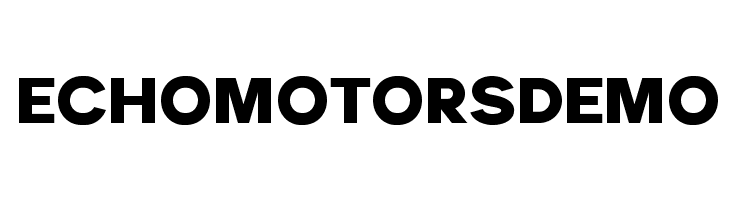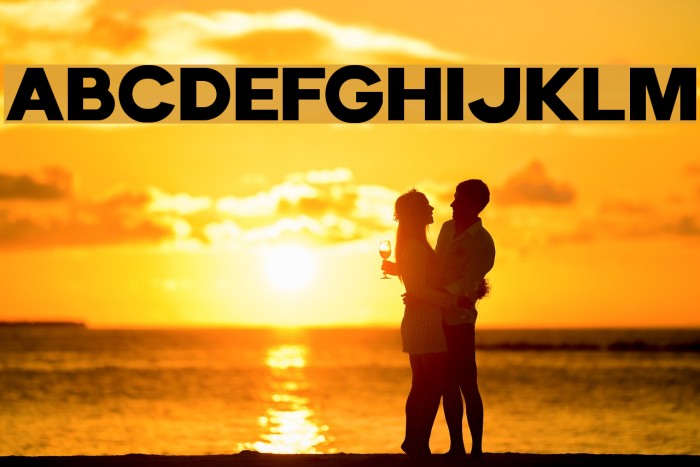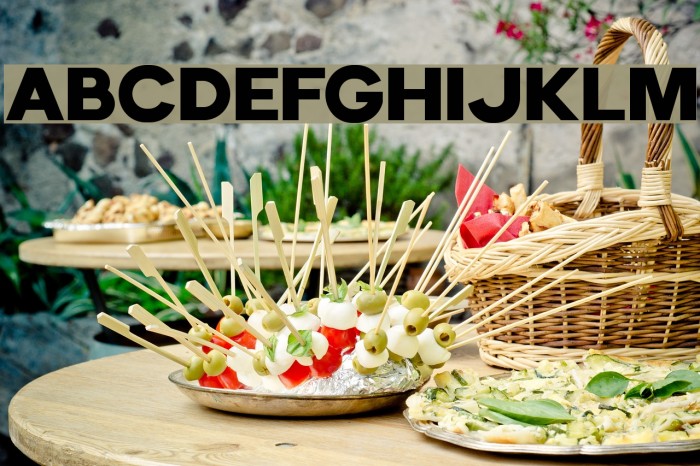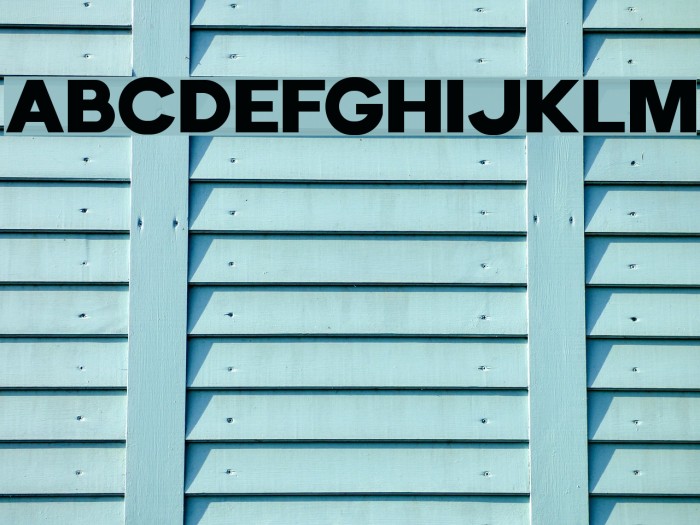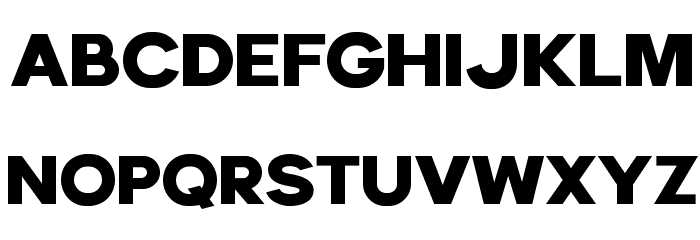
EchomotorsDemo Font
EchomotorsDemo Description
This font features bold, uppercase letters with a strong, impactful presence. The characters are uniformly wide, providing a sense of stability and confidence. The strokes are thick and consistent, offering a high contrast that enhances readability. The design is modern and straightforward, making it suitable for attention-grabbing headlines or branding materials. The spacing between characters is tight, which contributes to its compact and cohesive appearance. Special characters are included, maintaining the bold and robust style of the alphabet.
A bold, modern font with high contrast and tight spacing, ideal for headlines from Uncategorized fonts.
- Proposed Projects: This font is perfect for projects that require a strong visual impact, such as advertising campaigns, logo design, or poster creation. Its boldness makes it suitable for branding and packaging, where readability and attention are crucial.
- Character Spacing: Tight